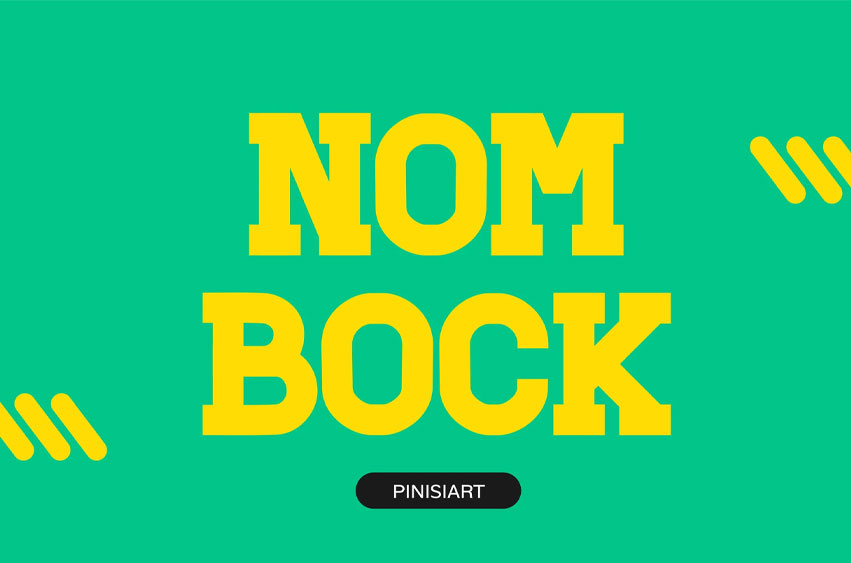
Nombock Font is a bold playful display typeface designed for high-energy visuals, combining chunky geometric shapes, thick strokes, and compact proportions to create a strong and friendly visual presence. Its letterforms feature solid block construction with soft edges, delivering a balance between power and approachability.
The vibe is playful, sporty, and energetic, making it ideal for sports events, kids branding, team posters, and social media graphics. Built with a geometric and block-style structure, NOMBOCK ensures high readability while maintaining a bold and fun personality. Perfect for branding, posters, merchandise, event promotions, and digital content, this typeface helps designers create visuals that feel lively and instantly engaging.
NOMBOCK is built for creators who want their designs to feel fun, bold, and full of energy. Whether you’re designing a sports campaign, kids event poster, or team branding, this font brings a sense of excitement and movement into your layout. Its strong shapes and playful rhythm make it ideal for branding, posters, editorial layouts, event graphics, and app UI, helping your message stand out with clarity and impact. If your goal is to create attention-grabbing and energetic visuals, NOMBOCK delivers with confidence.
Key Features : Chunky Geometric Style
- Thick strokes with solid block construction
- Rounded edges for a friendly visual tone
- Balanced proportions for strong readability
High-Energy Visual Impact
- Designed for bold headlines and titles
- Instantly grabs attention in busy layouts
- Perfect for vibrant and colorful compositions
Sporty & Playful Appeal
- Ideal for sports, kids, and event branding
- Works great for posters, merchandise, and campaigns
- Matches energetic and dynamic design themes
Efficient & Versatile Use
- Clean spacing for quick layout setup
- Consistent structure for professional results